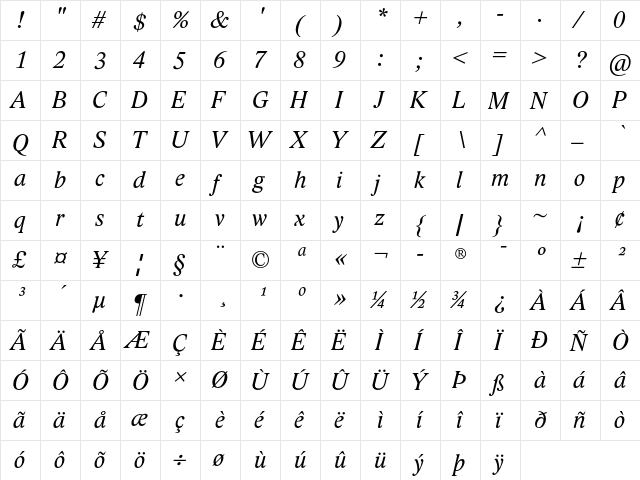
Lido STF Italic
| Designer | Frantisek Storm |
Design Context for Lido STF Typeface
Lido STF offers clean, dependable letterforms without strong stylistic allegiance, making it a practical choice for designers who need flexibility. The slanted form adds forward momentum and visual energy.
Pro Tip: Try Lido STF for annotation and caption copy alongside an upright companion — the contrast in angle creates a dynamic but ordered typographic system.